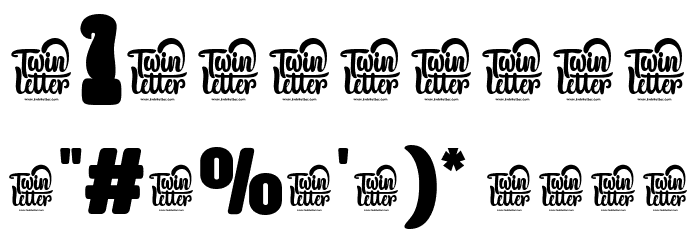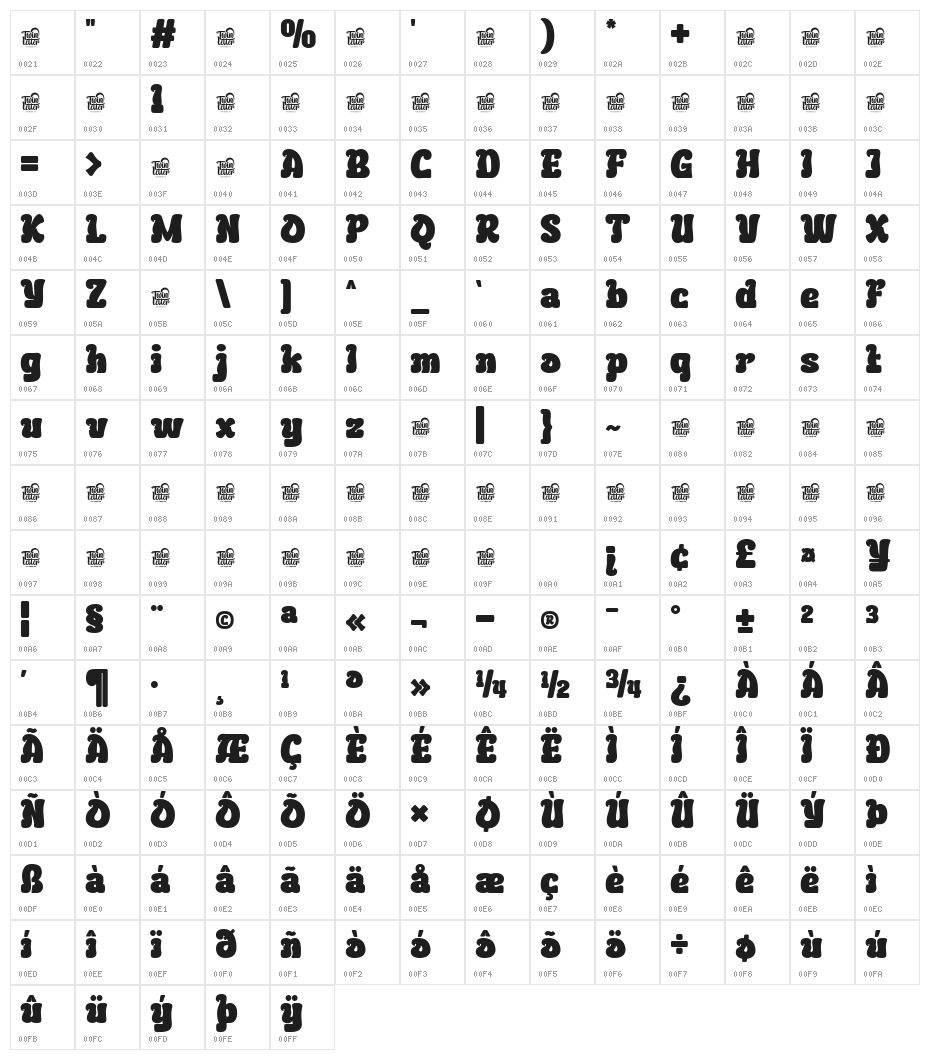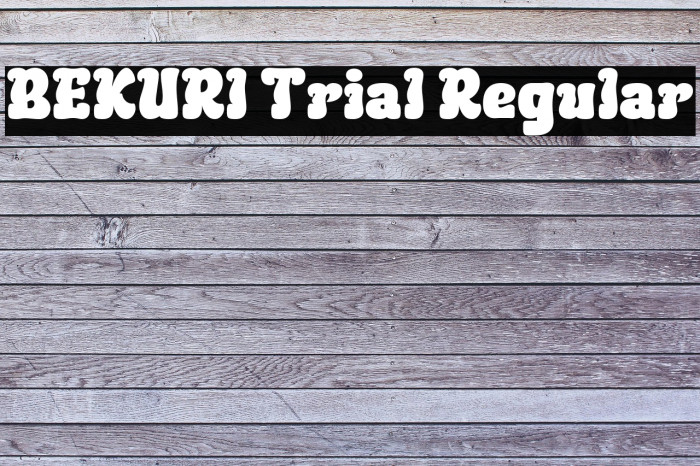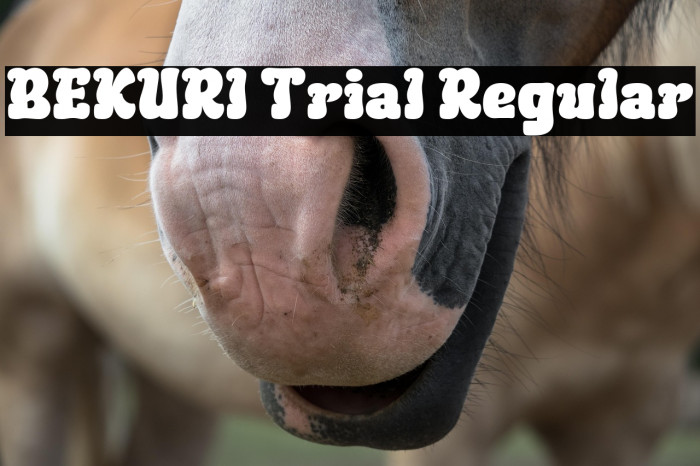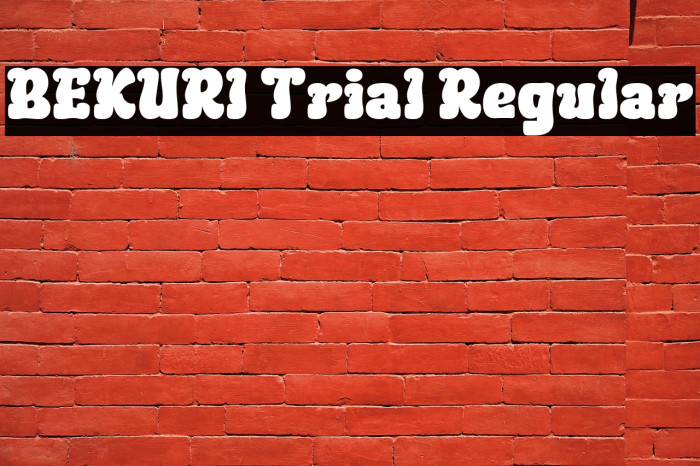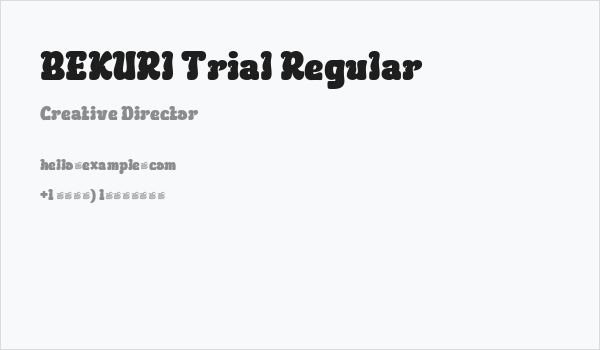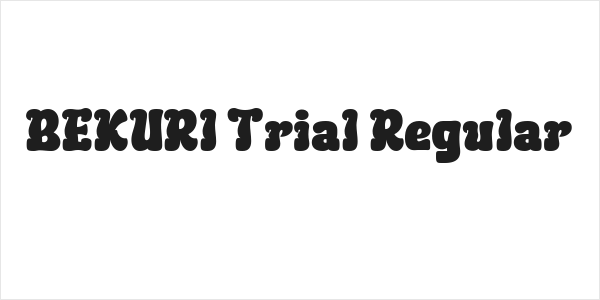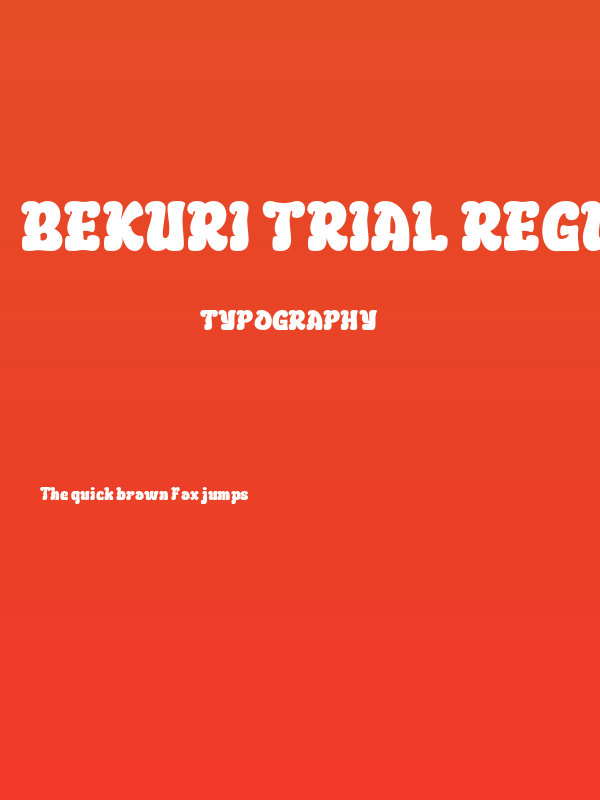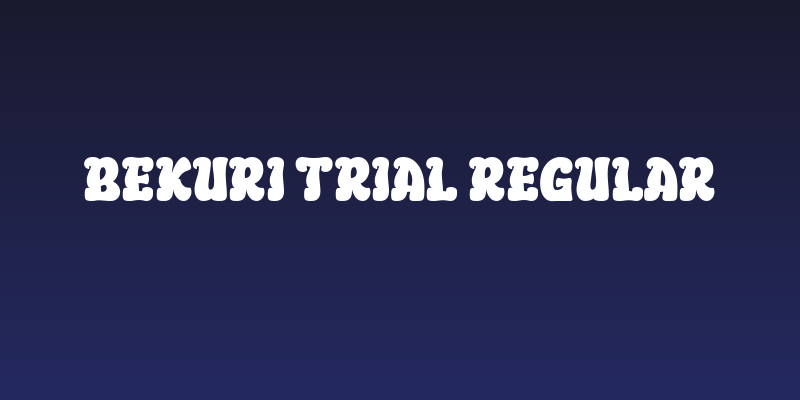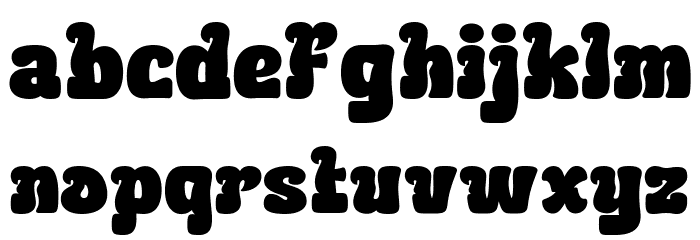
BEKURI Trial Regular Font
BEKURI Trial Regular Description
This font features a bold and playful design with thick, rounded strokes that give it a bubbly and friendly appearance. The characters are well-defined with a consistent weight throughout, making it highly legible despite its decorative style. The uppercase and lowercase letters maintain a uniform look, while the numerals and special characters complement the overall aesthetic. Its unique style is eye-catching and ideal for creative projects that require a fun and engaging typeface.
| Overall Style | Playful, Decorative |
| Proposed Projects | Ideal for children's books, playful branding, posters, and social media graphics. |